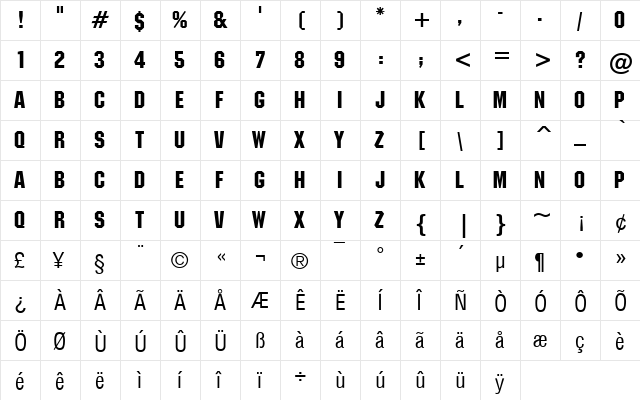
Ayar Pyatho Regular
| Foundry | Ayar Unicode Group |
| Designer | Ayar Unicode Group |
Design Context for Ayar Pyatho Typeface
Ayar Pyatho offers clean, dependable letterforms without strong stylistic allegiance, making it a practical choice for designers who need flexibility.